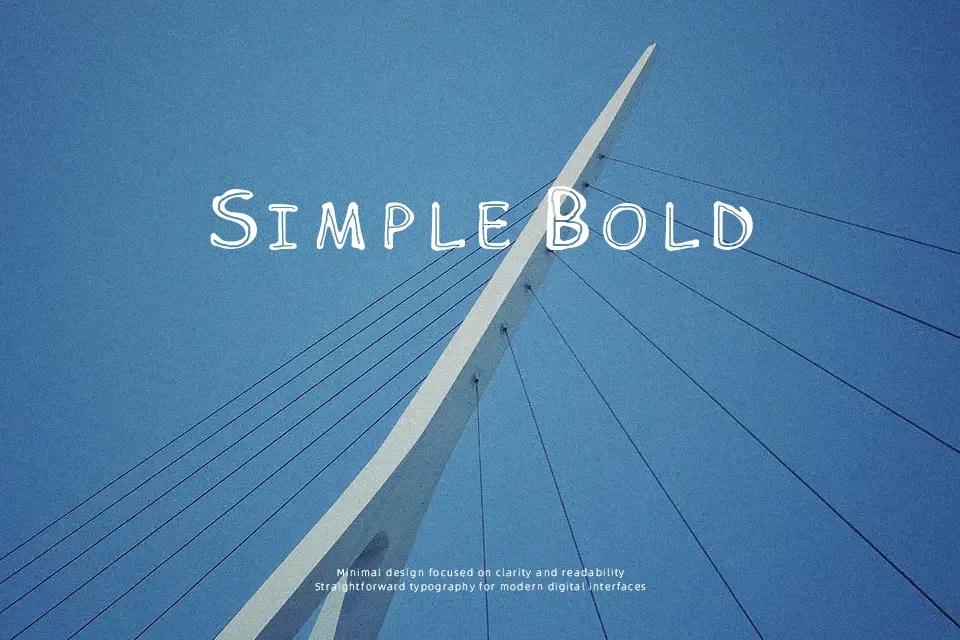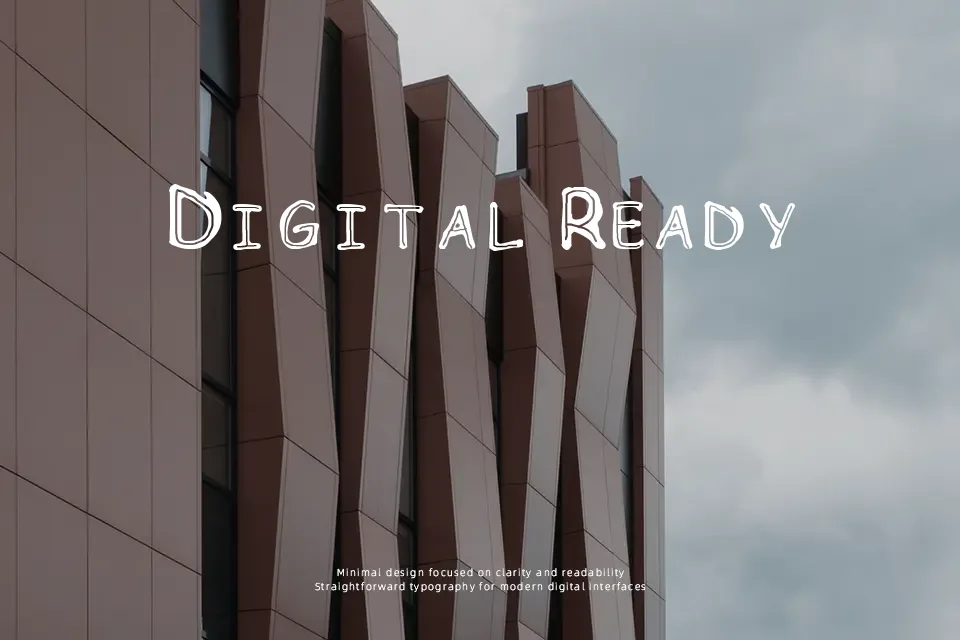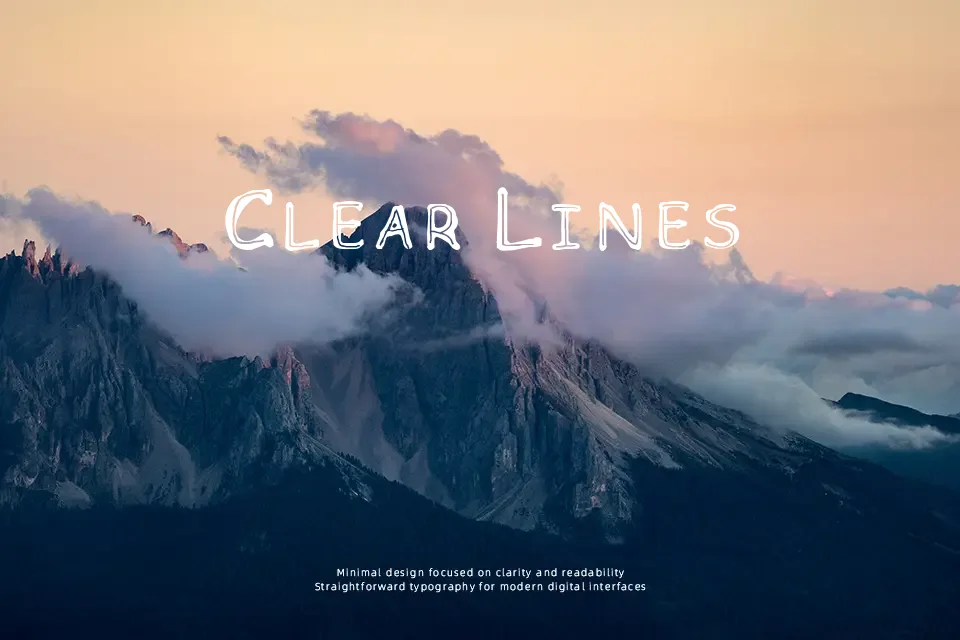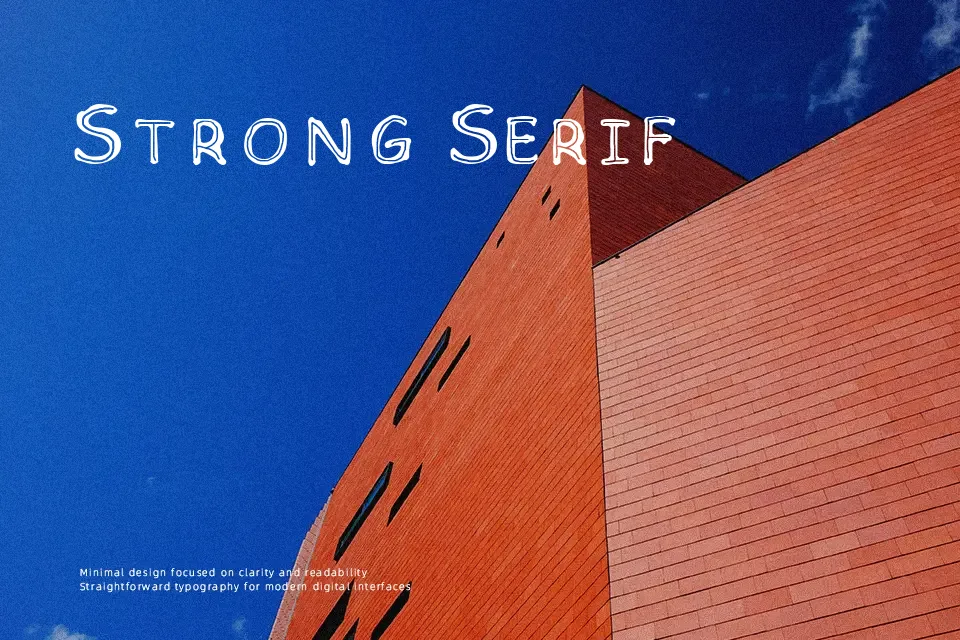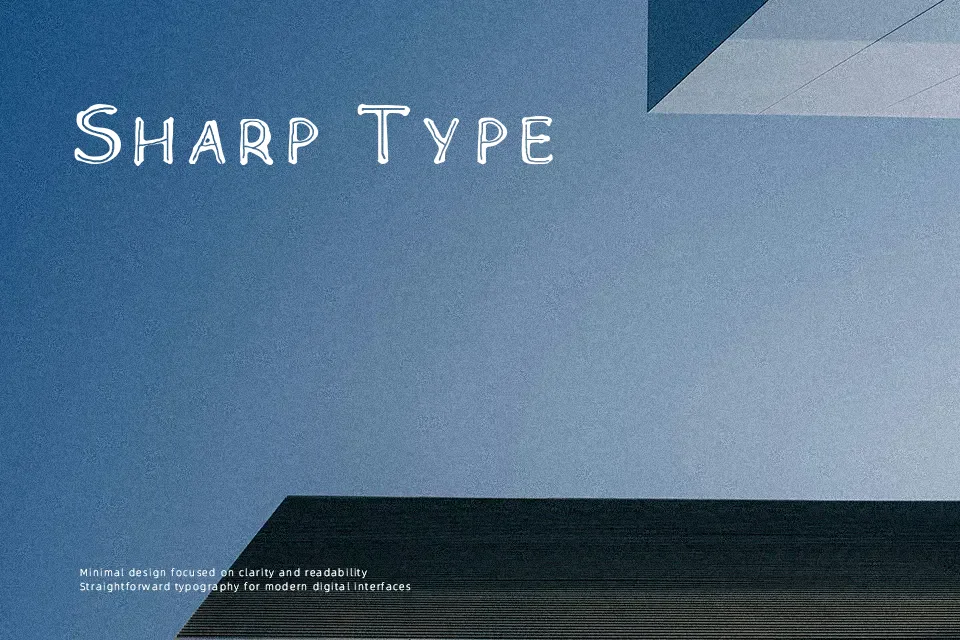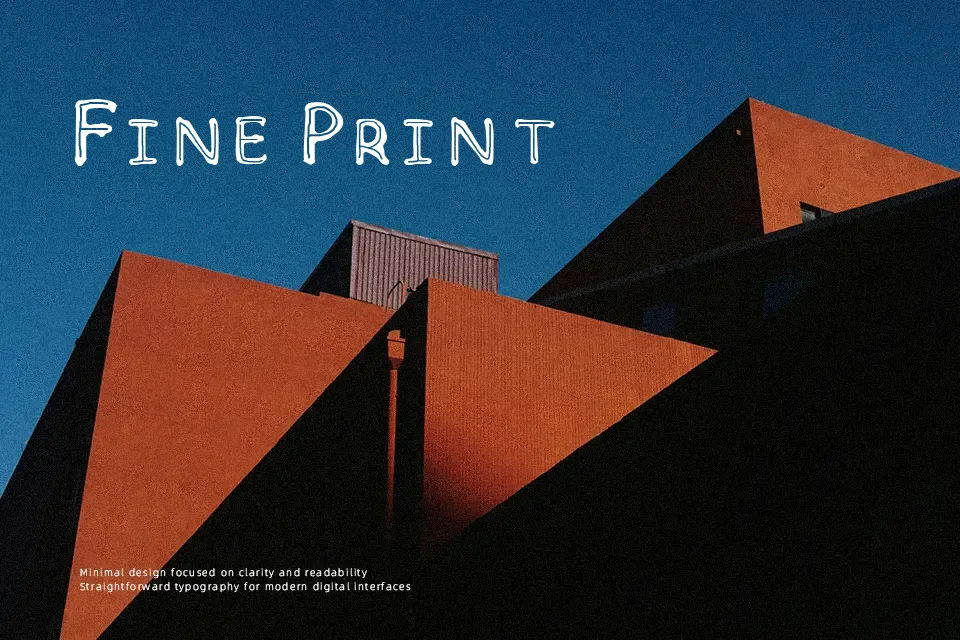
Children Font
Children Font introduces an animated display design characterized by bold, hand-drawn contours and intentionally varied baseline alignments. The letterforms feature thick strokes with soft edges, producing an informal and approachable aesthetic across headline compositions. While spacing between glyphs remains relatively open to prevent visual clutter in short phrases, the exaggerated proportions and idiosyncratic character shapes reduce reading comfort across extended text blocks. The typeface excels in vibrant settings such as juvenile book covers, party invitations, and merchandise graphics where casual expression takes priority. However, small caption sizes cause finer contours to blur together, making the design best suited strictly for prominent display placements.
– Illustrated storybook covers
– Animated video title cards
– Youth event promotional posters
– Toy and game packaging
– Continuous editorial body paragraphs
– Dense technical documentation
– Small user interface microcopy
– Formal business correspondence
Perfect for headline, kids, and packaging, with a creative and cartoon style.